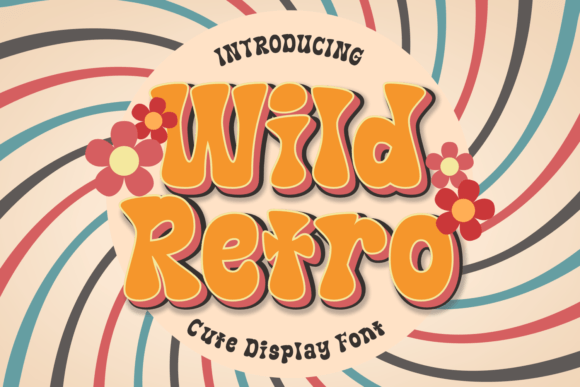
Introducing Wild Retro Font, the ultimate choice for those seeking a font that brings their branding to life! This display font, created by the renowned Creative Fabrica Fonts, is not your ordinary typeface. It exudes a delightful and playful charm that is sure to captivate anyone who lays eyes on it.
With Wild Retro, your typography designs will effortlessly stand out from the crowd. This groovy font injects a splash of joy and playfulness into any creation, making it impossible for your audience to resist its magnetic appeal. Whether you're designing posters, headlines, book covers, signage, apparel, advertisements, invitations, or anything else that requires a touch of creativity, Wild Retro is the perfect choice.
Imagine the impact this font will have on your brand! It will instantly elevate your visual identity and leave a lasting impression on your audience. Wild Retro Font has been meticulously crafted to evoke positive emotions and create a memorable experience for your customers. Its unique style will make your brand unforgettable and set you apart from the competition.
But it's not just about aesthetics. Wild Retro Font is also a powerhouse when it comes to functionality. Its versatility allows it to adapt seamlessly to any project, ensuring that your message gets across loud and clear. The font's legibility and clarity will ensure that your audience effortlessly absorbs your content, leading to increased engagement and conversions.
Don't settle for ordinary fonts that fail to make an impact. Choose Wild Retro Font and let your creativity run wild! Embrace the power of this charming and captivating typeface to ignite emotions, spark curiosity, and establish a strong connection with your target audience.